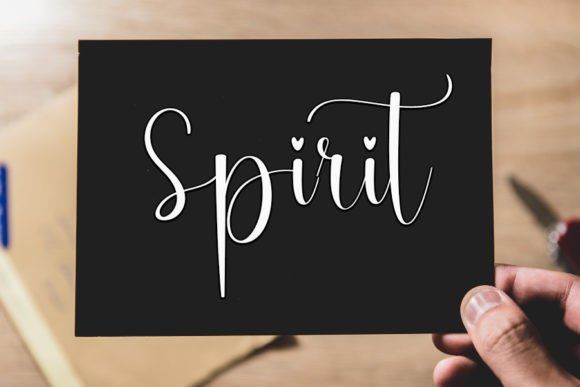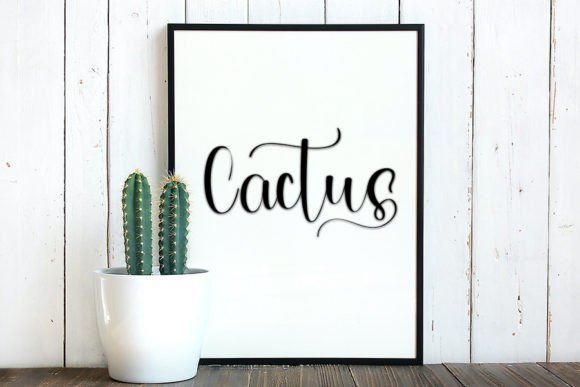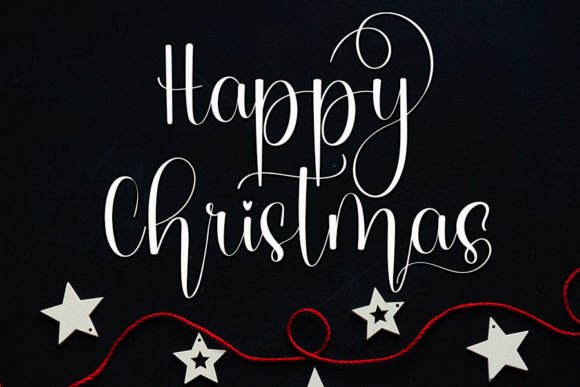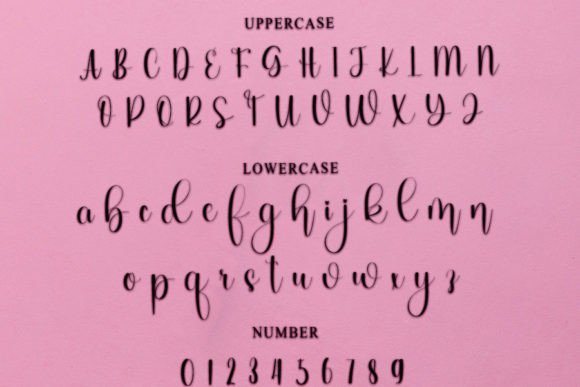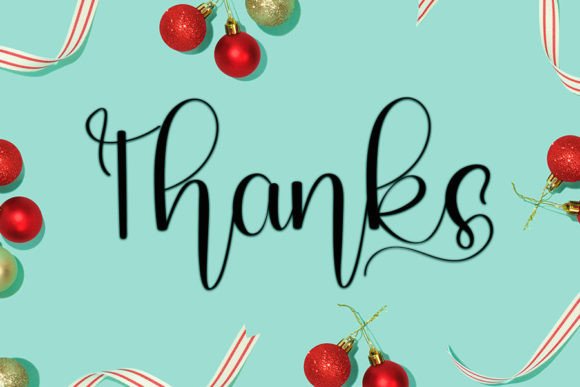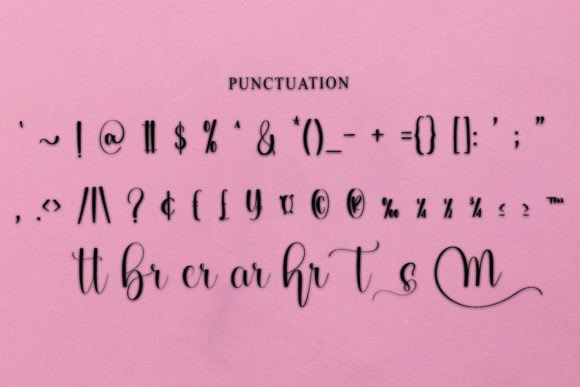
Merry Christmas Font
About Merry Christmas Font
Merry Christmas font is a neat and beautiful handwritten typeface crafted with an elegant touch. It brings a festive and warm spirit to your favorite creative projects. Whether you are designing holiday cards, invitations, or seasonal branding, this font offers a timeless style that adds charm and sophistication to every design. Its distinct characters make your work stand out while maintaining readability and style.
Elegant and Festive Style
With its smooth strokes and flowing lines, Merry Christmas font evokes the joy and warmth of the holiday season. The font’s elegant touch enhances any project, giving it a refined yet cozy feel. It perfectly balances classic calligraphy influences with a modern handwritten look, making it versatile for both traditional and contemporary designs.
Perfect for Holiday Projects
This font is an excellent choice for Christmas cards, invitations, gift tags, and festive social media posts. It also works beautifully for seasonal branding and packaging, giving products a handcrafted, heartfelt appearance. The font’s neat style ensures that your holiday messages look clear and inviting, helping you connect with your audience during the most wonderful time of the year.
Why Choose Merry Christmas Font?
Merry Christmas font combines elegance with festive charm, making it a valuable addition to any designer’s toolkit. It is perfect for anyone looking to create memorable and stylish holiday designs. By using this font, you bring a unique and joyful touch to all your seasonal projects, ensuring they stand out with grace and beauty.